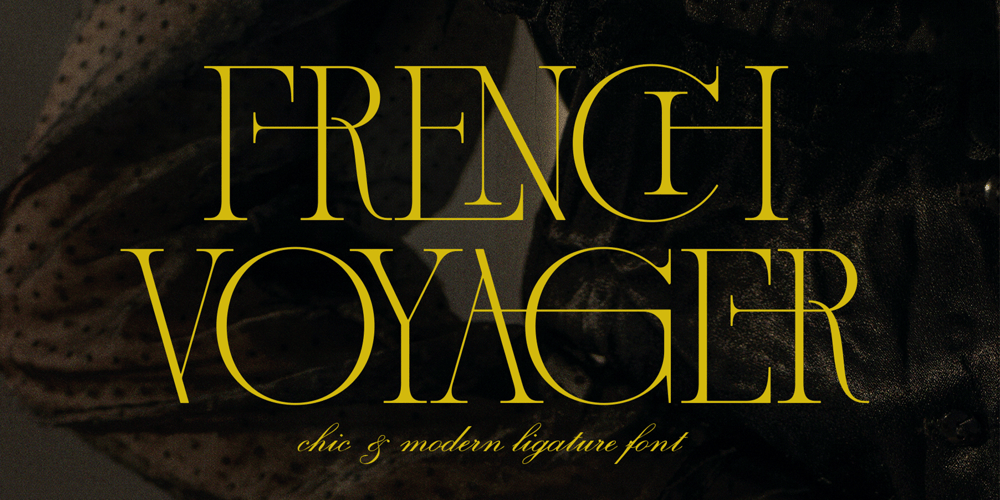
French Voyager Font Family was designed by SilverStag and published by SilverStag. French Voyager contains 1 styles and family package options. Vintage & chic, nostalgic & super elegant, modern & art deco! French Voyager is a brand new nostalgic serif font revival that brings all these and even more. It is perfect for logos & quotes, posters & branding, website headlines, newsletters & more! It includes over 60 ligatures and some chic alternate letters, so you can combine it to get the look you want!